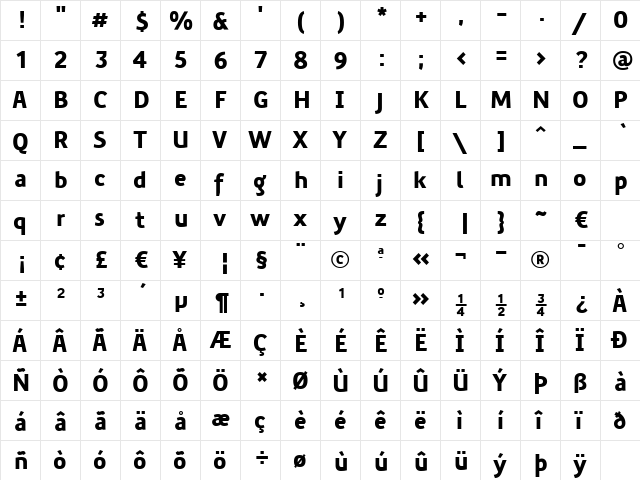
PreciousSansBlack Regular
Design Context for PreciousSansBlack Typeface
PreciousSansBlack takes a measured approach to typography — its balanced proportions and neutral character make it a reliable workhorse for both digital and print work.
Pro Tip: Use PreciousSansBlack in both headline and body roles to test its range before committing to a single application.